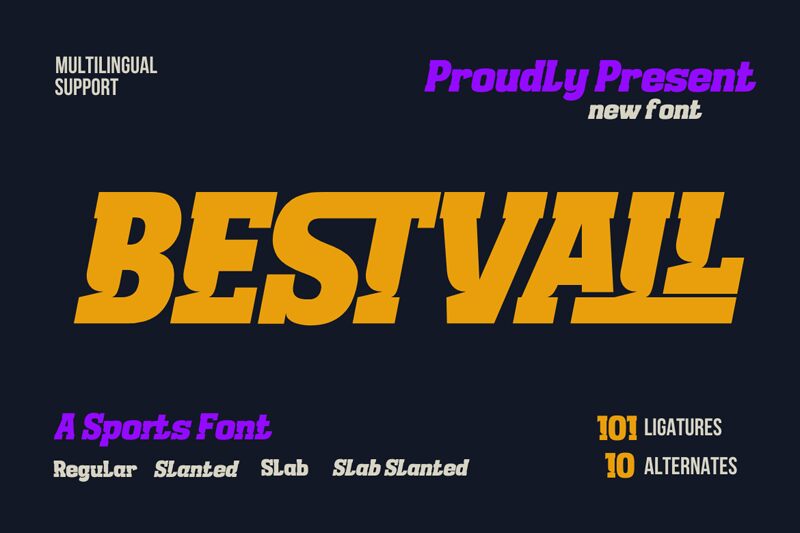
Bestvall Slab Slant font by Twinletter brings strong and impactful characters with a powerful aesthetic. This free display font features retro, athletic, and assertive styles which will easily grab the attention of the viewer. The bold modern design mixes various elements, and manages to preserve harmony where shapes feel solid.
Use Bestvall in advertisements or visually enhance digital products such as applications, websites, games etc. Other uses include signs, logos, branding or even decorating t-shirts and other print products like newspapers or magazines infographics all of which can benefit from this important typeface.